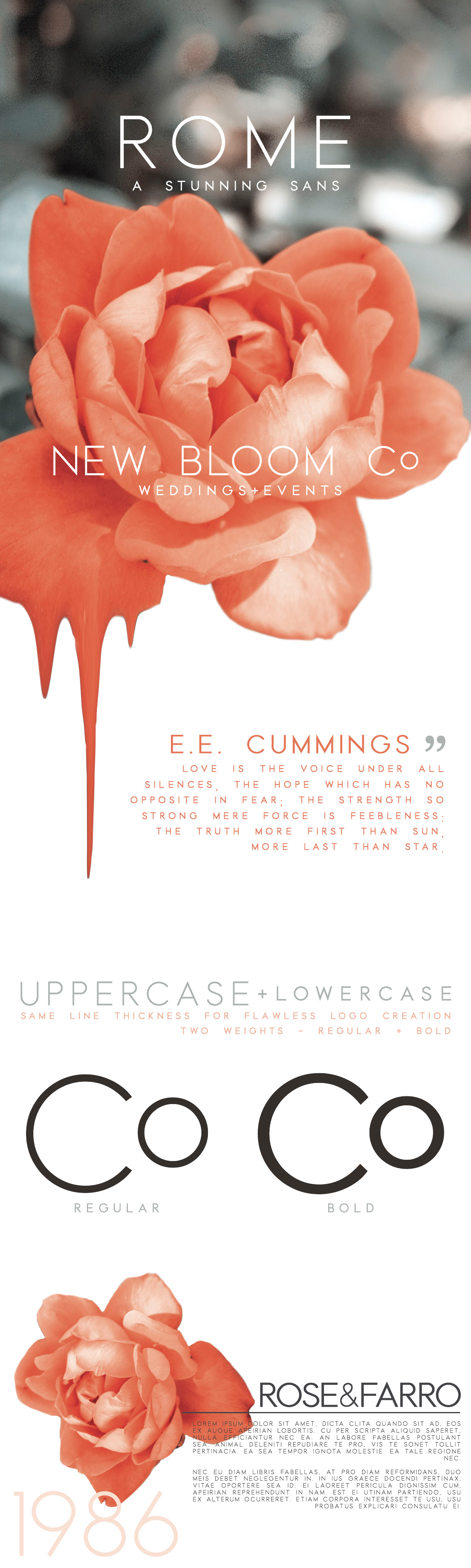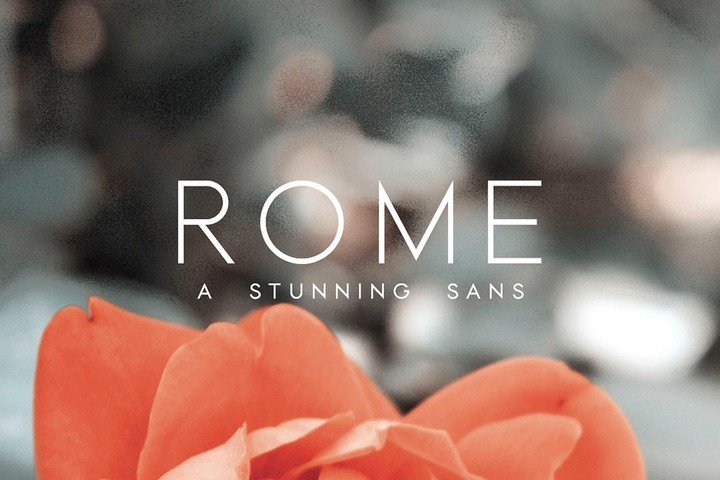
Rome | A Stunning Sans Serif Font
Rome | A Stunning Sans Serif Font is perfect for luxury Italian brands, classical architecture firms, heritage museums, fine art galleries, premium fashion houses, sophisticated restaurants, cultural institutions, elegant travel campaigns, timeless jewelry designs, and distinguished editorial layouts.
What makes Rome | A Stunning Sans Serif Font exciting is its imperial grandeur that embodies the eternal beauty of Roman civilization and classical elegance through majestically crafted letterforms. This magnificent typeface combines ancient wisdom with contemporary sophistication, creating a personality that communicates timeless authority, cultural heritage, and enduring excellence. The font's Roman-inspired character and classical appeal make it perfect for brands seeking to evoke the magnificent legacy of ancient Rome and the sophisticated allure of Italian craftsmanship.
The Rome | A Stunning Sans Serif Font family includes Regular, Bold, Light, Medium, Imperial, Classical, Condensed, and Monumental variants. Each weight maintains the font's Roman character while providing comprehensive typographic flexibility for heritage brand identity systems and classical design applications across diverse cultural platforms.
Whether you're developing luxury heritage identities, creating classical marketing materials, designing museum exhibitions, or building sophisticated cultural campaigns, Rome | A Stunning Sans Serif Font delivers unmatched imperial appeal and Roman sophistication. Its majestic presence makes it perfect for luxury Italian brands, cultural institutions, heritage organizations, and prestigious establishments seeking authentic Roman representation.
The font's classical proportions and imperial details create an awe-inspiring reading experience that transports audiences to the magnificent forums of ancient Rome and elegant Italian piazzas. Each letterform has been carefully crafted to preserve Roman typographic tradition while maintaining excellent readability across modern luxury applications.
This versatile typeface excels in prestigious environments, offering designers the grandeur needed for comprehensive classical brand communication strategies. The extensive character set includes Roman alternates, imperial ligatures, and classical symbols for luxury heritage market positioning and cultural brand storytelling.
Embrace the power of eternal design that celebrates Roman heritage and timeless Italian sophistication.